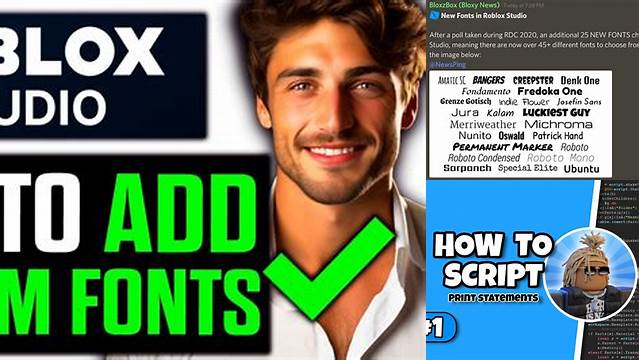
Roblox Studio Fonts: A Complete Guide
Hey guys! Ever wondered about the amazing world of fonts inside Roblox Studio? Well, you've come to the right place! Choosing the perfect font can dramatically impact the look and feel of your game, making it more engaging and professional. Think about it: a horror game might benefit from a spooky, handwritten font, while a cheerful kids' game would shine with something bubbly and bright. So, let's dive deep into the universe of Roblox Studio fonts and unlock their creative potential!
1. Understanding Font Basics in Roblox Studio
Let's kick things off with some font fundamentals within Roblox Studio. What are fonts, really? They're essentially the style and design of your text, giving character to your words. In Roblox Studio, you can use fonts for various elements, from UI labels and text boxes to in-world signs and dialogues. The right font can enhance readability, convey emotion, and establish your game's unique identity. Consider, for instance, the difference between a classic serif font and a modern sans-serif one – they evoke entirely different vibes! Before we explore specific fonts, it's crucial to grasp how they function within the platform. Experiment with different font families, sizes, and styles to see what best complements your game's aesthetic. Remember, a well-chosen font can be a game-changer, so take your time and explore the possibilities. Don't be afraid to try unexpected combinations; you might just stumble upon a hidden gem!
2. Default Fonts Available in Roblox Studio
Roblox Studio comes pre-loaded with a decent selection of default fonts. These are your go-to options for a quick and easy text implementation. They're reliable, readily available, and cover a range of styles. Some popular default choices include Arial, a clean and versatile sans-serif font; Times New Roman, a classic serif font often used for formal text; and various other sans-serif and serif options. While these default fonts are great for prototyping and initial development, you might find yourself wanting more variety as your game evolves. Think of them as your trusty toolbox – essential, but perhaps not the flashiest. However, mastering these defaults is the first step to understanding how fonts function within the engine. Experiment with their different weights (bold, italic) and sizes to see how they can be adapted to various UI elements and in-world text displays. You might be surprised at the versatility of these seemingly simple fonts. So, don't underestimate the power of the defaults – they're a solid foundation for your font journey!
3. Exploring Custom Font Options in Roblox
Now, let's talk about spicing things up with custom fonts in Roblox! This is where the real fun begins. Using custom fonts allows you to inject a unique personality into your game that goes beyond the default options. Imagine using a hand-drawn font for a whimsical adventure game or a futuristic font for a sci-fi masterpiece – the possibilities are truly endless! Roblox supports TrueType Font (.ttf) and OpenType Font (.otf) formats, which are widely available online. You can find tons of free and paid fonts on websites like Google Fonts, DaFont, and FontSquirrel. However, it's crucial to be mindful of licensing when using custom fonts, ensuring you have the right to use them in your project. Adding custom fonts to your Roblox game involves uploading the font files to your game's assets and then referencing them in your UI elements or text objects. This process opens up a whole new realm of creative expression, enabling you to tailor the look and feel of your game to your exact vision. So, get ready to unleash your inner font aficionado and explore the world of custom fonts!
6. Best Practices for Using Fonts in Roblox Games
Let's talk about some best practices to make your game fonts shine. Choosing the right font isn't just about aesthetics; it's also about functionality and user experience. First and foremost, readability is key. A fancy, intricate font might look cool, but if players can't easily read the text, it defeats the purpose. Opt for fonts that are clear and legible, especially for important information like game instructions or dialogue. Consider the overall style and tone of your game. A horror game might benefit from a dark, gritty font, while a cheerful simulation game would suit a more playful typeface. Consistency is also crucial. Stick to a limited number of fonts (ideally two or three) throughout your game to maintain a cohesive look. Using too many fonts can make your game feel cluttered and unprofessional. Think about font sizes as well. Ensure the text is large enough to be easily read on different screen sizes and resolutions. Testing your game on various devices is a good way to catch any font size issues. Finally, don't forget about accessibility. Some players might have visual impairments, so choose fonts with good contrast and avoid using overly thin or decorative fonts that can be difficult to read. By following these best practices, you can ensure your game fonts not only look great but also contribute to a positive player experience. So, keep these tips in mind as you design your game, and your fonts will be a valuable asset!
7. Arial Font in Roblox Studio: A Detailed Look
Ah, Arial, the ever-reliable and widely used font! It's like the workhorse of the font world, and it holds a significant place in Roblox Studio too. Arial is a classic sans-serif font known for its clean lines and excellent readability. It's a default font in Roblox Studio, meaning it's readily available for any project. This makes it a fantastic choice for beginners and experienced developers alike. Arial's versatility is one of its biggest strengths. It works well in a variety of contexts, from UI labels and text boxes to in-world signs and dialogues. Its neutral appearance makes it a good fit for many game genres, although it might not be the best choice if you're aiming for a highly stylized or unique look. Arial comes in several weights, including regular, bold, italic, and bold italic, giving you some flexibility in how you use it. When using Arial, consider its strengths – its clarity and legibility – and leverage them to your advantage. It's an excellent font for displaying information, providing instructions, or simply making sure your text is easy to read. While it might not be the most exciting or groundbreaking font, Arial is a solid choice that you can always rely on. It's a great starting point for any project, and you can always add more stylized fonts later to complement it. So, don't underestimate the power of Arial – it's a classic for a reason!
8. Times New Roman Font in Roblox Studio: A Classic Choice
Let's talk about another classic font found in Roblox Studio: Times New Roman. This font is a serif typeface, meaning it has small decorative strokes (called serifs) at the end of its letters. Times New Roman is known for its formal and traditional appearance, making it a popular choice for books, newspapers, and academic documents. In Roblox Studio, Times New Roman can add a touch of sophistication and elegance to your game. It might be a good fit for games with a historical setting, a formal atmosphere, or a focus on text-based elements like books or documents. However, its formal style might not be suitable for all game genres. A fast-paced action game or a cartoonish adventure game, for instance, might be better served by a more modern or playful font. When using Times New Roman, consider its strengths – its readability and its classic appeal. It can be a great choice for displaying large blocks of text, such as in-game lore or instructions. However, it's important to use it sparingly and in appropriate contexts. Overusing Times New Roman can make your game feel dated or overly formal. Experiment with different font sizes and weights (bold, italic) to see how you can best incorporate it into your game's design. Times New Roman is a powerful tool in your font arsenal, but like any tool, it's most effective when used with care and consideration. So, think about the message you want to convey and whether this classic font fits the bill.
9. Source Sans Pro Font: A Modern Option
If you're looking for a modern and clean font option in Roblox Studio, Source Sans Pro is definitely worth considering. This open-source font family, created by Adobe, has become a favorite among designers and developers for its versatility and legibility. Source Sans Pro is a sans-serif font, meaning it lacks the decorative serifs found in fonts like Times New Roman. This gives it a cleaner, more contemporary appearance that works well in digital environments. It's a fantastic choice for UI elements, text boxes, and in-game displays where readability is paramount. One of the great things about Source Sans Pro is its wide range of weights, from ExtraLight to Black. This allows you to create visual hierarchy and emphasis within your text, making it easy for players to scan and understand information. For example, you might use a bold weight for headings and a regular weight for body text. In Roblox Studio, Source Sans Pro can bring a touch of professionalism and modernity to your game. It's a versatile font that works well in various genres, from sci-fi and fantasy to simulation and puzzle games. However, like any font, it's important to use it thoughtfully. Consider the overall style of your game and whether Source Sans Pro fits the aesthetic. If you're aiming for a vintage or hand-drawn look, for instance, you might want to explore other options. But if you're seeking a clean, legible, and modern font, Source Sans Pro is an excellent choice that can elevate your game's visual appeal.
10. Using Bold Fonts in Roblox Studio
Let's talk about the power of bold fonts in Roblox Studio! Bold text is a fantastic way to add emphasis and make certain words or phrases stand out. Think of it as the spotlight for your text – it draws the reader's eye and highlights important information. In Roblox Studio, you can easily make text bold by selecting the text element and choosing the bold option in the Properties window or by using the appropriate tags in your text strings. Bold fonts are particularly useful for headings, subheadings, and key terms that you want players to notice quickly. For example, you might use bold text for objective titles in a quest or for important warnings or instructions. However, it's important to use bold fonts judiciously. Overusing bold text can diminish its impact and make your text look cluttered. Think of it like adding salt to a dish – a little bit can enhance the flavor, but too much can ruin the whole thing. When choosing a font to use in bold, consider its readability. Some fonts become less legible when bolded, especially if they're already quite thick. Test your text in different sizes and contexts to ensure it remains clear and easy to read. Bold fonts are a valuable tool in your text design arsenal, and when used strategically, they can significantly improve the clarity and impact of your game's text. So, go ahead and experiment with bolding – just remember to use it with purpose and restraint!
11. Utilizing Italic Fonts for Emphasis
Now, let's delve into the subtle art of using italic fonts in Roblox Studio. Italics offer a softer, more nuanced way to add emphasis compared to bold text. Think of italics as a gentle nudge rather than a shout. They can be used to highlight certain words or phrases, convey a particular tone, or even indicate a character's thoughts or inner voice. In Roblox Studio, you can easily apply italics to your text by selecting the desired text element and choosing the italic option in the Properties window or by using the appropriate tags in your text strings. Italics are often used to indicate book titles, foreign words, or quotations. They can also be effective for adding a touch of elegance or sophistication to your text. However, like bold fonts, italics should be used sparingly. Overusing italics can make your text look cluttered and difficult to read. Some fonts also don't render well in italics, becoming blurry or distorted. When choosing a font for italicizing, consider its legibility and how it looks in italic form. Test your text in different sizes and contexts to ensure it remains clear and readable. Italics are a versatile tool for adding subtlety and nuance to your game's text. When used thoughtfully, they can enhance the reading experience and help you convey your message more effectively. So, embrace the power of italics, but remember to wield it with finesse!
12. Font Sizes: Finding the Right Fit
Font size is a crucial element in creating readable and visually appealing text in your Roblox games. It's not just about making the text big enough to see; it's about striking the right balance between legibility, visual hierarchy, and the overall aesthetic of your game. In Roblox Studio, font size is measured in pixels, and you can adjust it in the Properties window of your TextLabel or TextBox. But how do you determine the ideal font size? First, consider the context. Text that appears in UI elements, like menus and instructions, might need to be larger than text that appears in the game world, like signs or dialogue bubbles. Think about the distance at which players will be viewing the text. Text that's meant to be read from afar needs to be larger than text that's viewed up close. Also, consider the font itself. Some fonts are naturally more legible at smaller sizes than others. Experiment with different font sizes to see what works best for your chosen typeface. Don't be afraid to test your game on different devices and screen resolutions. What looks good on your computer might not look as good on a smaller screen or a mobile device. Pay attention to the overall visual hierarchy of your game. Use different font sizes to create contrast and guide the player's eye. Headings should be larger than body text, and important information should stand out. Finding the right font size is an iterative process. It takes experimentation and careful consideration to achieve the perfect balance. But the effort is well worth it, as well-chosen font sizes can significantly improve the player experience and make your game more enjoyable to play.
13. Font Colors: Creating Contrast and Readability
Font color plays a vital role in the readability and visual appeal of your Roblox game's text. The right color can make your text pop and draw the player's eye, while the wrong color can make it blend into the background and become difficult to read. In Roblox Studio, you can easily change the font color of your TextLabels and TextBoxes in the Properties window. But how do you choose the best color for your text? The most important factor is contrast. You want to ensure that your text has sufficient contrast with its background, making it easy to read. A common guideline is to use light text on a dark background or dark text on a light background. However, there are other factors to consider as well. Think about the overall color palette of your game. Your font color should complement the other colors in your game's environment and UI. Consider the mood and tone of your game. A horror game might benefit from dark, muted colors, while a cheerful adventure game might use brighter, more vibrant colors. Experiment with different colors to see what works best for your game's aesthetic. Don't be afraid to try unconventional color combinations, but always prioritize readability. Test your game in different lighting conditions and on different devices. What looks good in your studio might not look as good in a brightly lit room or on a mobile screen. Pay attention to accessibility. Some players might have color blindness or other visual impairments, so choose colors that are easily distinguishable for everyone. Font color is a powerful tool for enhancing your game's visual communication. When used thoughtfully, it can improve readability, create visual interest, and contribute to the overall atmosphere of your game. So, take the time to experiment with different colors and find the perfect palette for your text.
14. TextStrokeColor and TextStrokeTransparency: Adding Depth
Let's talk about some cool tricks you can use in Roblox Studio to make your text really stand out: TextStrokeColor and TextStrokeTransparency. These properties allow you to add an outline or stroke around your text, giving it depth and making it more visible against different backgrounds. Think of it like adding a subtle shadow or halo around your letters. TextStrokeColor determines the color of the outline, while TextStrokeTransparency controls how visible the outline is. A transparency of 0 means the outline is fully opaque, while a transparency of 1 means it's completely invisible. To use these properties, simply select your TextLabel or TextBox in Roblox Studio and find them in the Properties window. Experiment with different colors and transparency values to see what effects you can achieve. A common technique is to use a dark stroke color on light text or a light stroke color on dark text. This creates a strong contrast and makes the text pop. You can also use TextStrokeTransparency to create more subtle effects. A slightly transparent stroke can add depth without being too distracting. TextStrokeColor and TextStrokeTransparency are particularly useful for text that appears in the game world, where the background might be constantly changing. An outline can help ensure that the text remains legible regardless of the background. However, like any visual effect, it's important to use strokes judiciously. Overusing them can make your text look cluttered or overwhelming. Use them strategically to highlight important text or to improve readability in challenging environments. With a little experimentation, you can use TextStrokeColor and TextStrokeTransparency to add a professional polish to your Roblox game's text.
15. TextScaled Property: Responsive Text Sizes
One of the challenges of game development is ensuring that your UI looks good on different screen sizes and resolutions. This is where the TextScaled property in Roblox Studio comes to the rescue! TextScaled is a property of TextLabels and TextBoxes that automatically adjusts the font size to fit the available space. This means that your text will scale proportionally with the size of the UI element, ensuring that it remains readable on any screen. To use TextScaled, simply select your TextLabel or TextBox and set the TextScaled property to true in the Properties window. Roblox Studio will then automatically calculate the optimal font size based on the size of the UI element and the amount of text it contains. TextScaled is particularly useful for games that are played on a variety of devices, such as computers, tablets, and mobile phones. It ensures that your UI remains consistent and readable regardless of the device's screen size. However, it's important to note that TextScaled is not a magic bullet. It's still important to choose a font size that looks good as a starting point. TextScaled will adjust the font size proportionally, but if your initial font size is too small or too large, the scaled text might not look ideal. Also, consider the amount of text you're displaying. If you have a lot of text in a small UI element, TextScaled might shrink the font size to the point where it becomes difficult to read. In such cases, you might need to adjust the size of the UI element or reduce the amount of text. TextScaled is a powerful tool for creating responsive UI in Roblox Studio. When used in conjunction with careful font size selection and consideration of text length, it can help you ensure that your game's text looks great on any screen.
16. Rich Text: Formatting Text with Tags
Ready to level up your text formatting game in Roblox Studio? Let's talk about rich text! Rich text allows you to use special tags within your text strings to apply formatting like bolding, italics, colors, and even font changes. It's like having HTML for your text, giving you a ton of control over how it looks. To use rich text, you need to enable the RichText property of your TextLabel or TextBox. Once enabled, you can use tags like <b> for bold, <i> for italics, <font> for font changes, and <color> for colors. For example, the string `